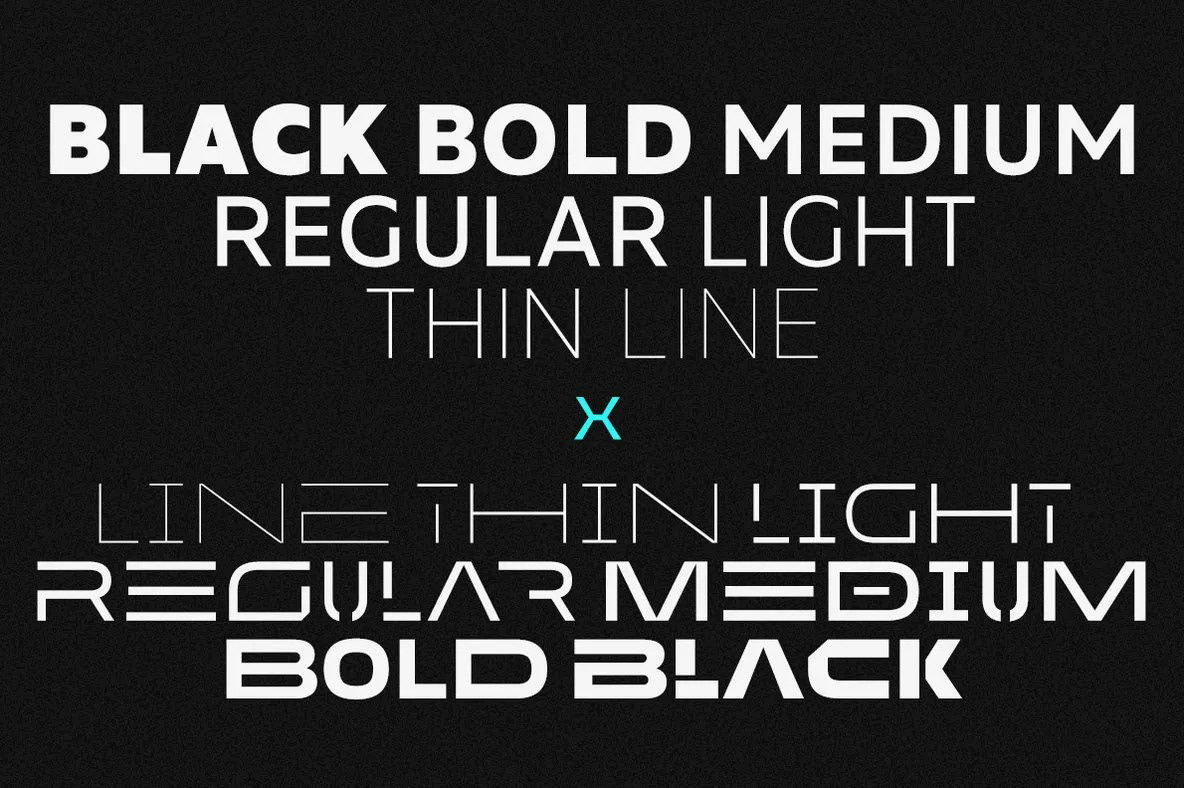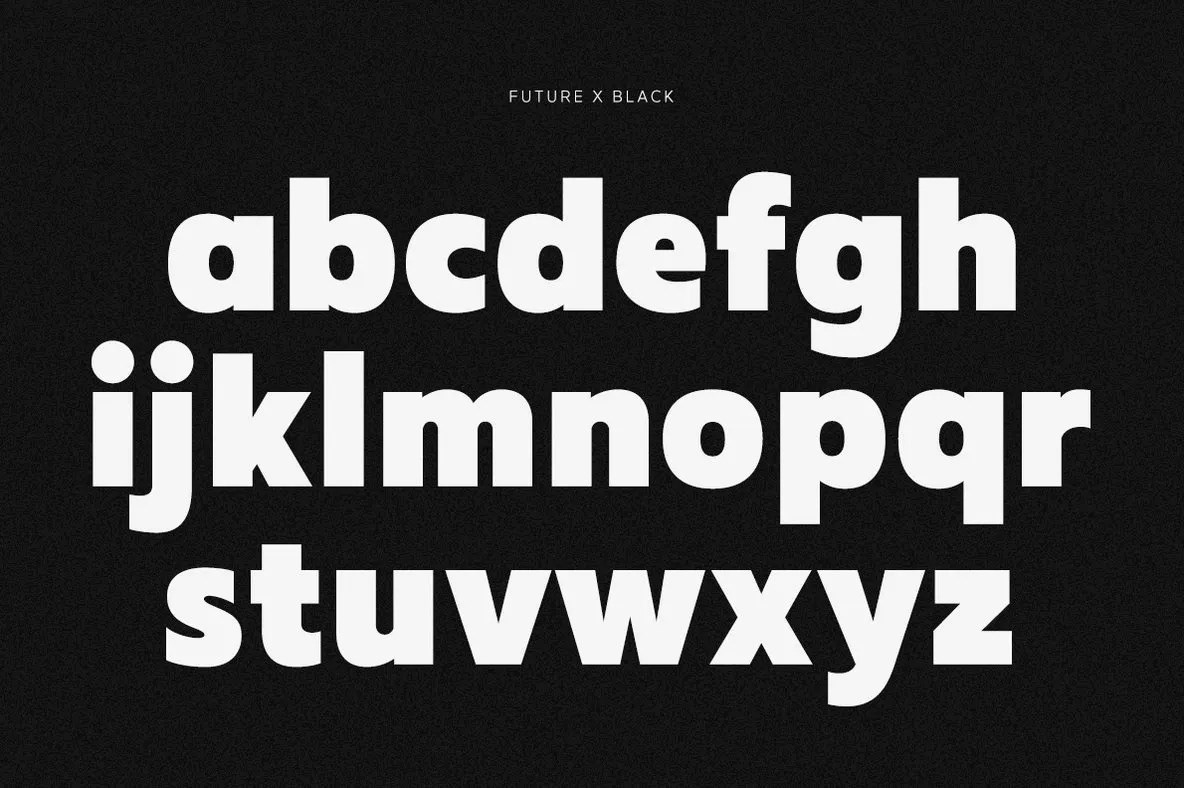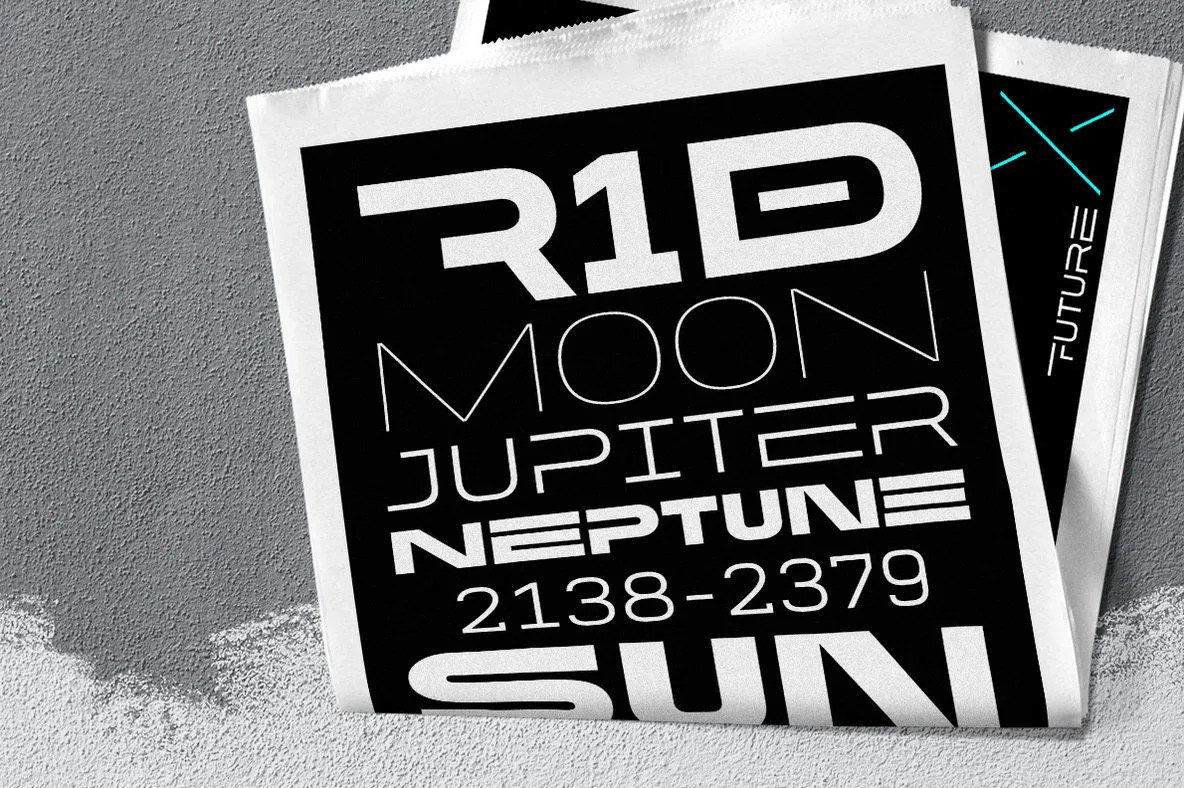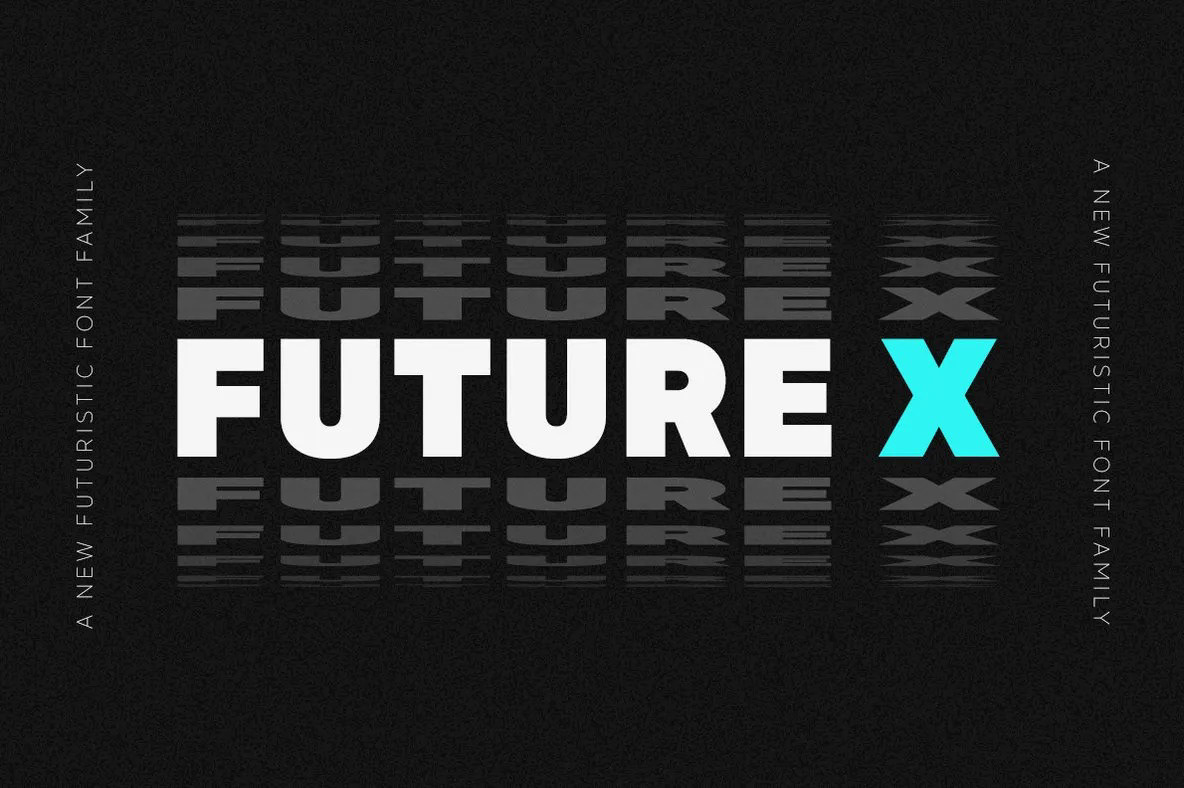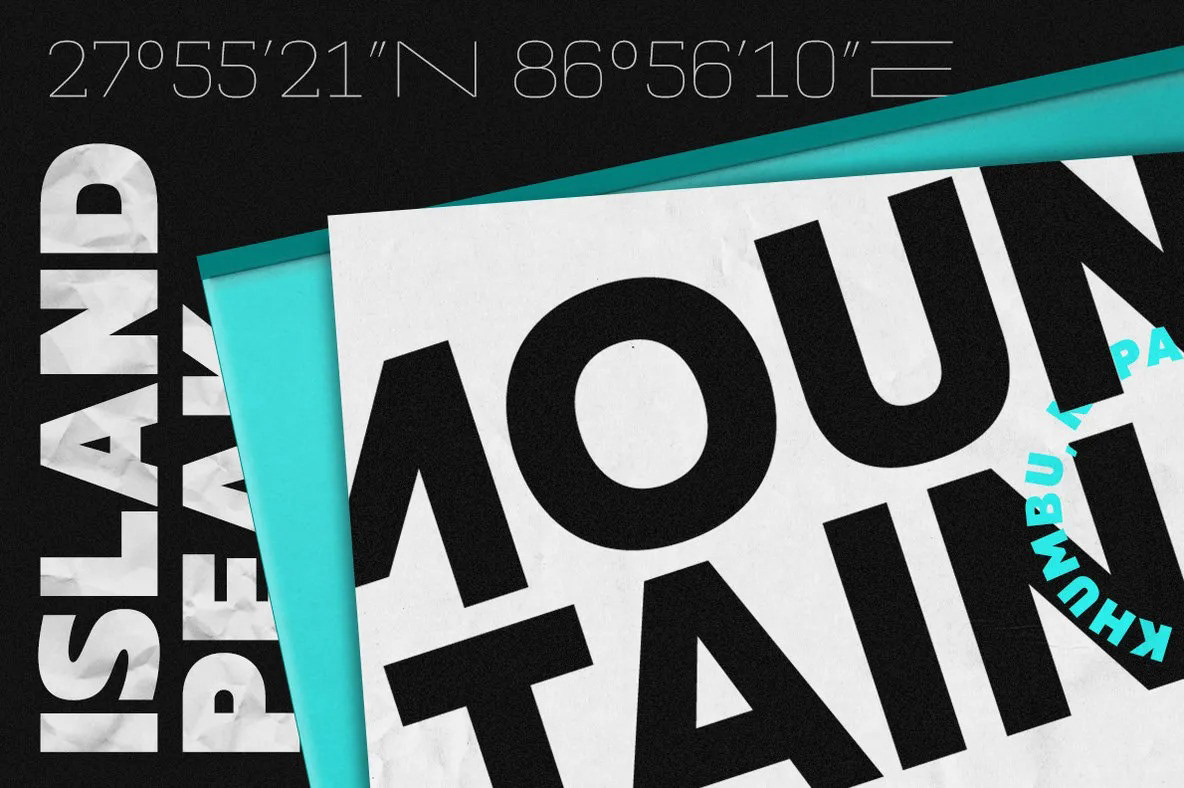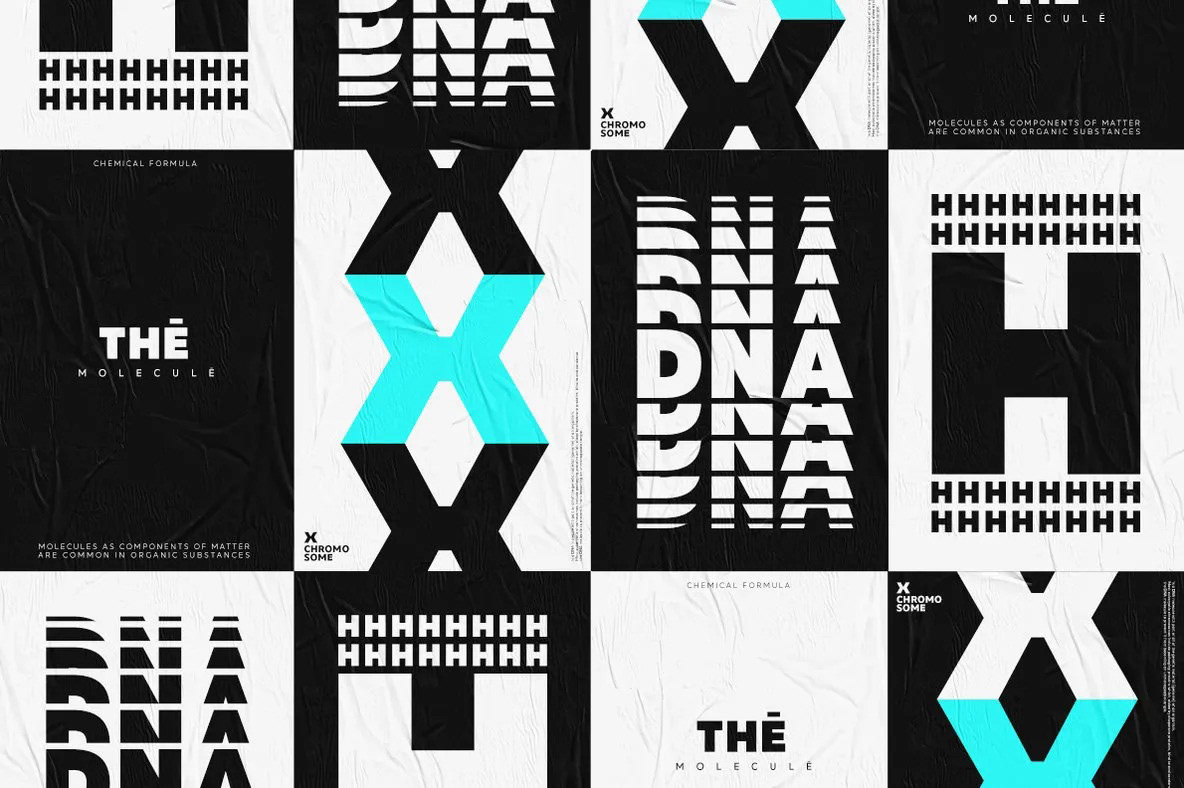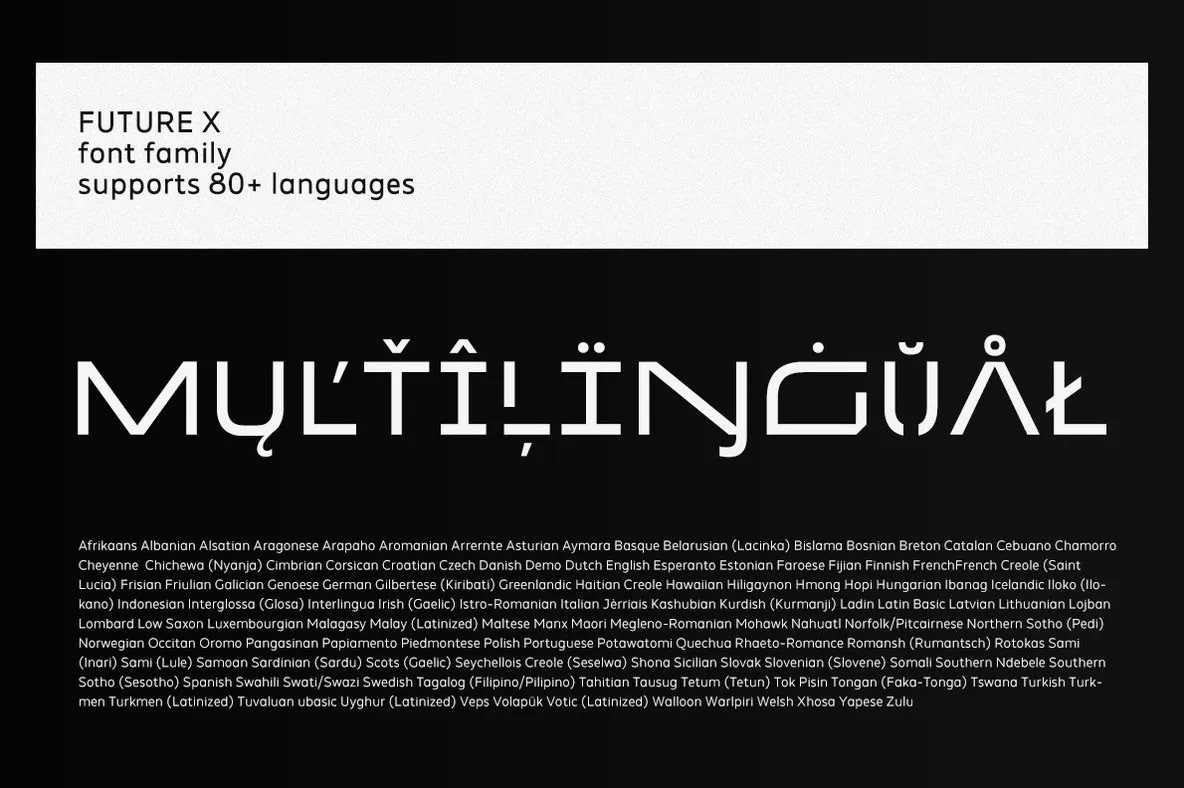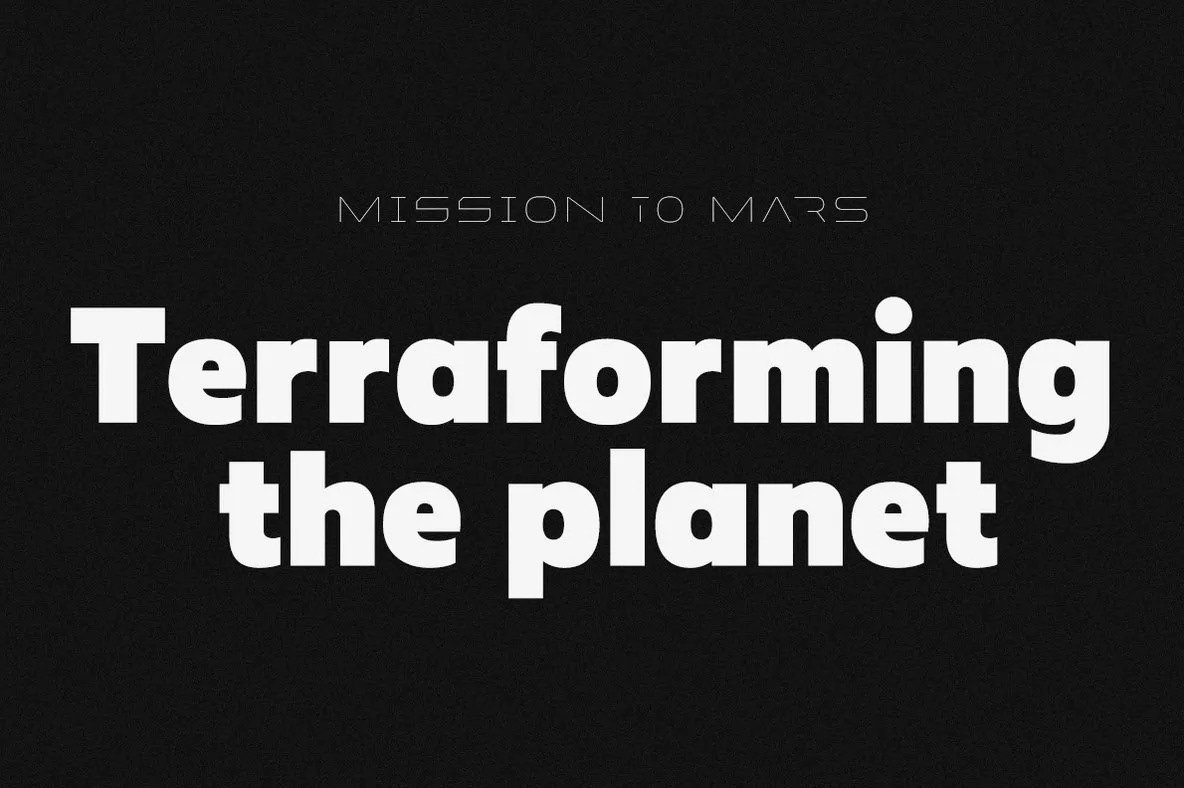
The Future X is a modern font family. The family includes 14 fonts. The Future X is made in the usual and futuristic style with the possibility of combining.
The Future X font family supports multilingual letters.
The Future X will perfect for many project: logo, branding, magazines, quotes, header, blog header, poster, advertisements, etc.
The Future X HEADER is perfect for headlines, blog headers, posters, newspapers, logo, book design, music posters, etc.
The Future X font family supports multilingual letters.
The Future X will perfect for many project: logo, branding, magazines, quotes, header, blog header, poster, advertisements, etc.
The Future X HEADER is perfect for headlines, blog headers, posters, newspapers, logo, book design, music posters, etc.